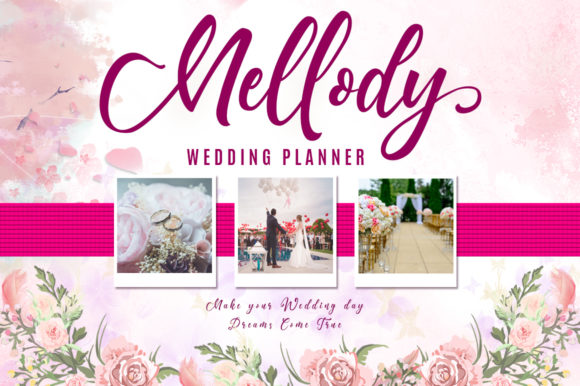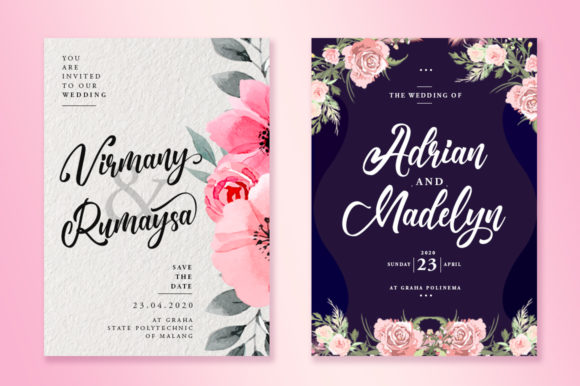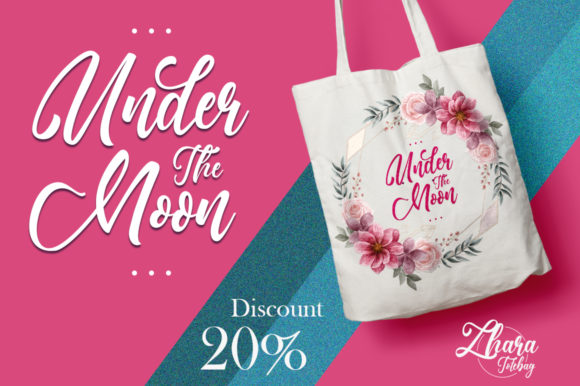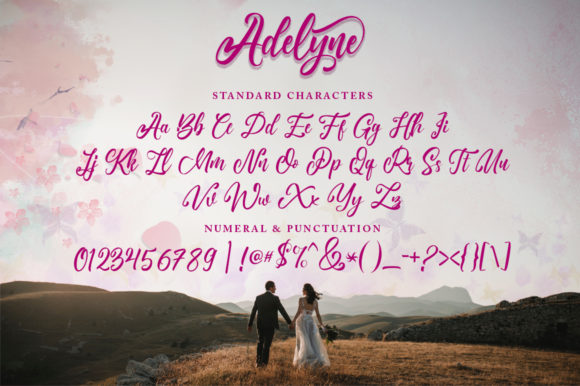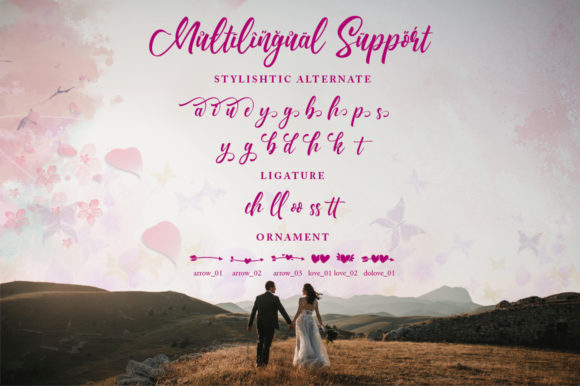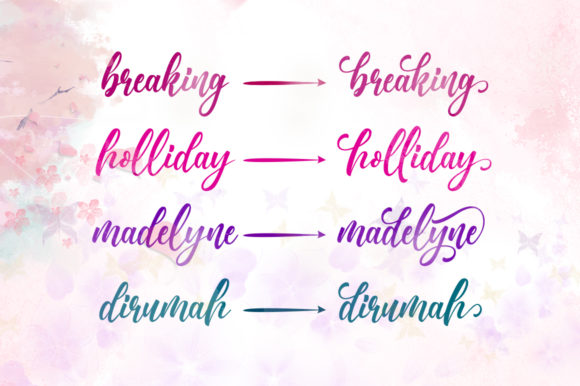
Introducing Adelyne Font: Elevate Your Creativity with Elegance
Are you a designer, crafter, or DIY enthusiast looking for a font that can add a touch of sophistication and elegance to your creative projects? Look no further than Adelyne Font, a truly outstanding handwritten font that simplifies elegance into one stunning script. In this article, we’ll explore the features and benefits of Adelyne Font, and how it can help you turn your creative ideas into true works of art.
The Beauty of Adelyne Font
Adelyne Font is a beautiful, handwritten script that exudes elegance and refinement. With its flowing lines and delicate curves, this font is perfect for adding a touch of sophistication to any creative project. Whether you’re looking for fonts for Instagram, calligraphy scripts for DIY projects, or a font to use in your graphic design work, Adelyne Font is an excellent choice.
Key Features of Adelyne Font
- Handwritten Script: Adelyne Font is a genuine handwritten script, giving it a personal and unique touch that’s perfect for adding a human element to your designs.
- Elegant and Refined: With its flowing lines and delicate curves, Adelyne Font is the epitome of elegance and refinement, making it perfect for high-end designs and projects.
- Versatile: Adelyne Font is incredibly versatile, making it suitable for a wide range of creative projects, from Instagram posts and DIY crafts to graphic design and more.
- Easy to Use: Adelyne Font is easy to use and can be easily integrated into your design workflow, making it perfect for designers and non-designers alike.
Uses for Adelyne Font
Adelyne Font is perfect for a wide range of creative projects, including:
- Instagram Fonts: Add a touch of elegance and sophistication to your Instagram posts and stories with Adelyne Font.
- Calligraphy Scripts: Use Adelyne Font for calligraphy scripts and DIY projects, such as hand-lettering and decorative writing.
- Graphic Design: Adelyne Font is perfect for graphic design projects, such as logo design, branding, and more.
- Crafting and Scrapbooking: Add a personal touch to your crafting and scrapbooking projects with Adelyne Font.
Benefits of Using Adelyne Font
By using Adelyne Font, you’ll enjoy a range of benefits, including:
- Increased Creativity: Adelyne Font will inspire you to create unique and beautiful designs that stand out from the crowd.
- Professional Results: With Adelyne Font, you can achieve professional-looking results, even if you’re not a skilled designer.
- Ease of Use: Adelyne Font is easy to use and integrate into your design workflow, saving you time and effort.
- Unique and Personal Touch: Adelyne Font adds a unique and personal touch to your designs, making them more relatable and engaging.
In conclusion, Adelyne Font is a truly outstanding handwritten font that simplifies elegance into one stunning script. With its flowing lines, delicate curves, and elegant refinement, this font is perfect for designers, crafters, and DIY enthusiasts looking to add a touch of sophistication to their creative projects. Whether you’re looking for fonts for Instagram, calligraphy scripts for DIY projects, or a font to use in your graphic design work, Adelyne Font is an excellent choice. So why wait? Download Adelyne Font today and start creating beautiful, elegant designs that turn your creative ideas into true works of art!